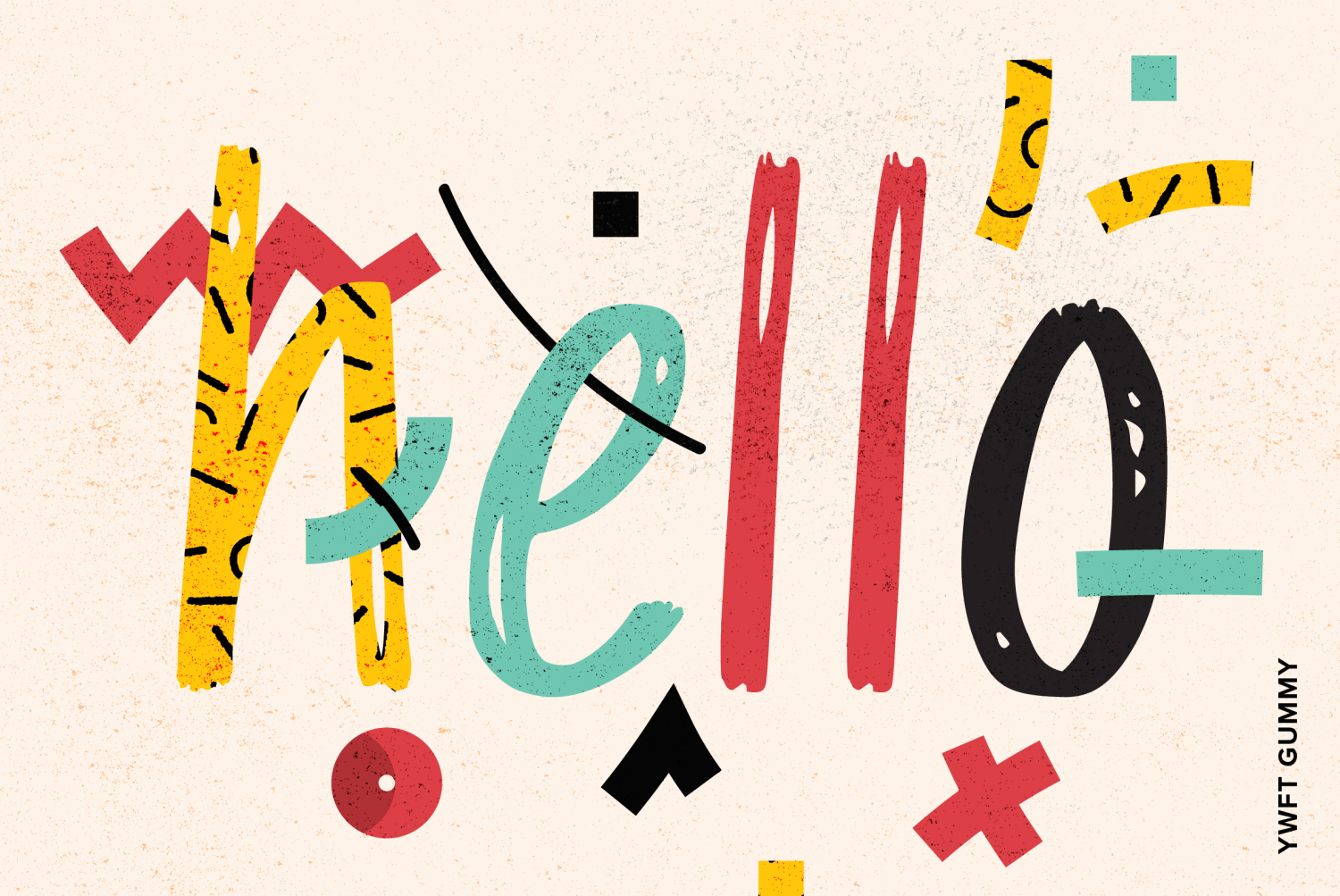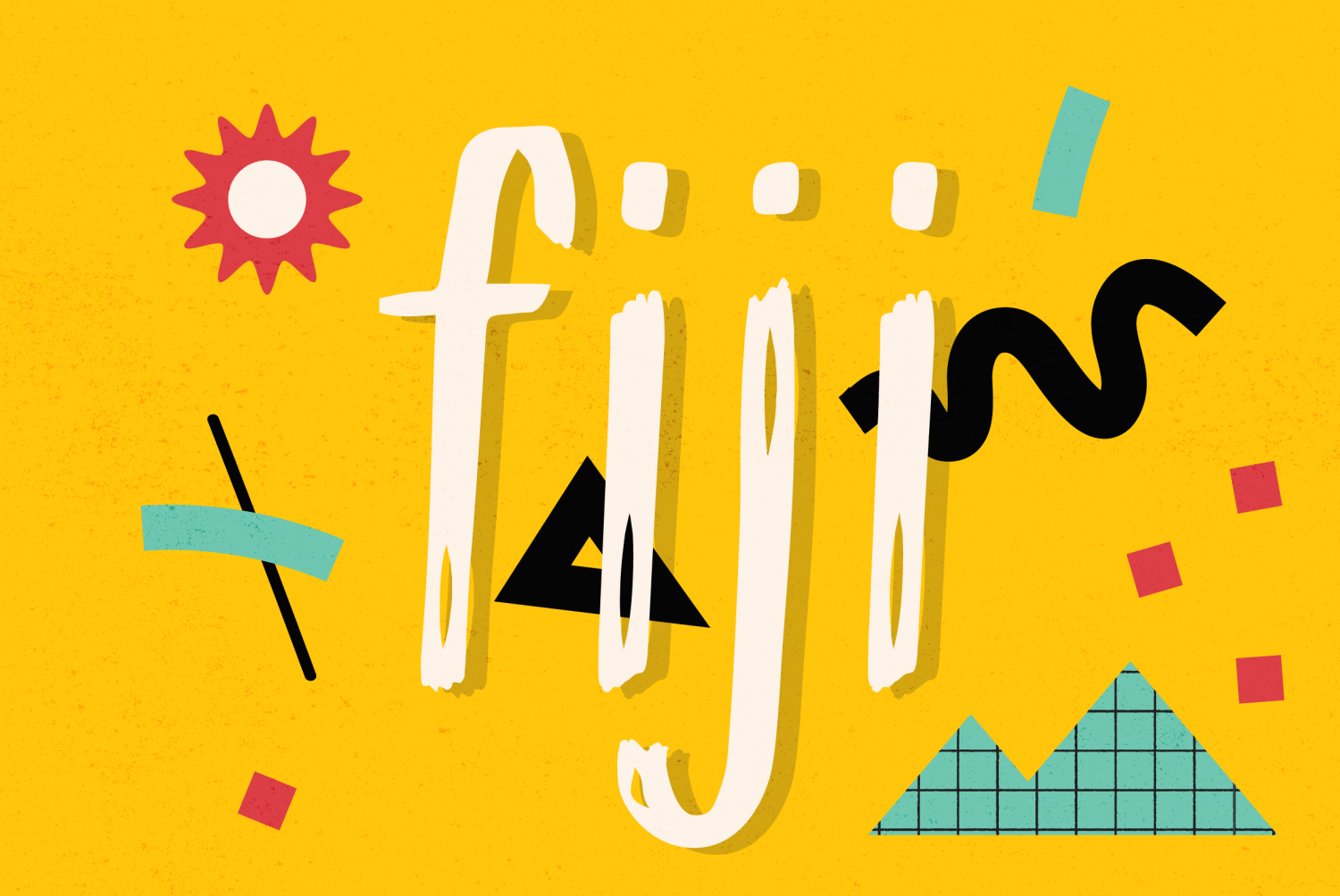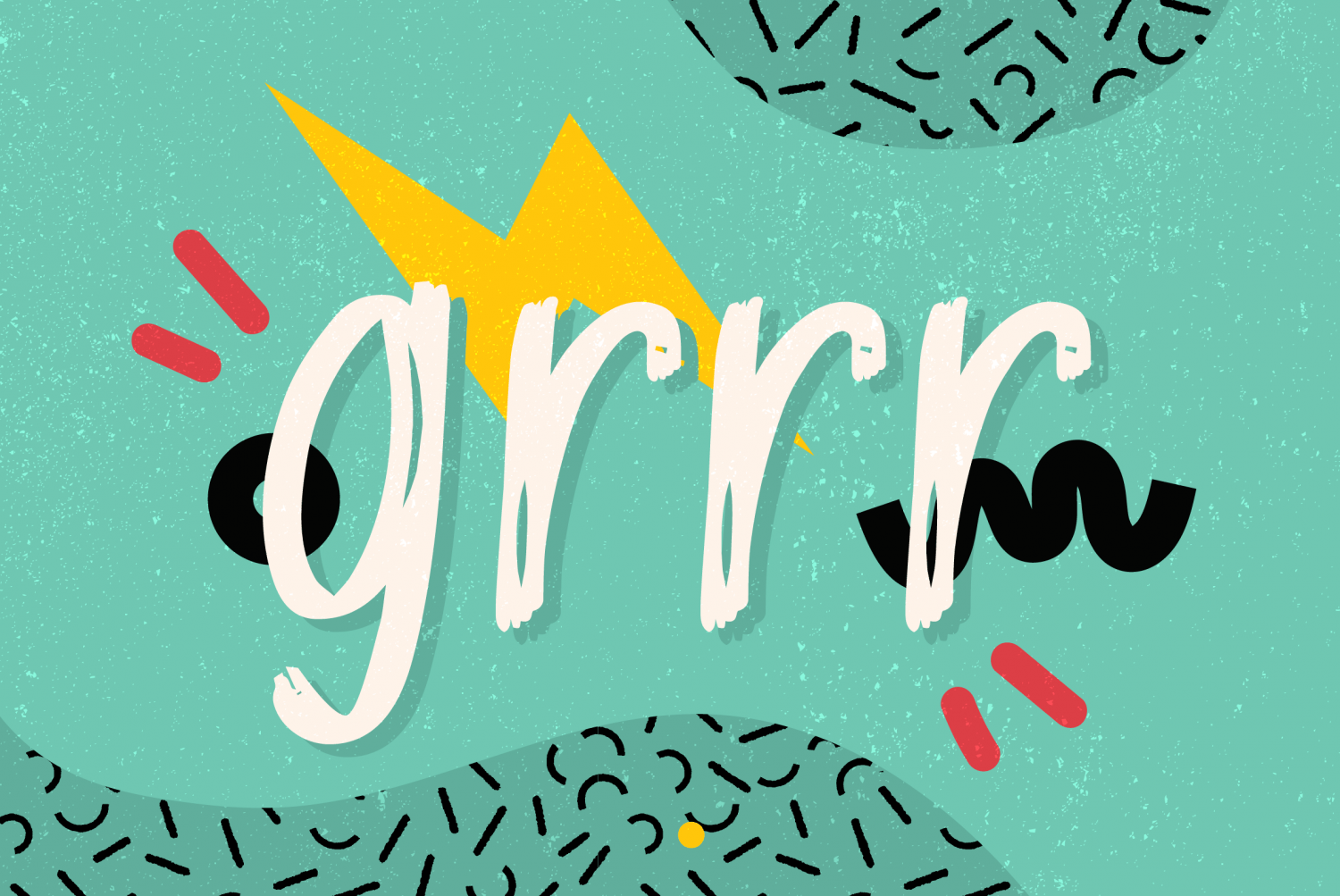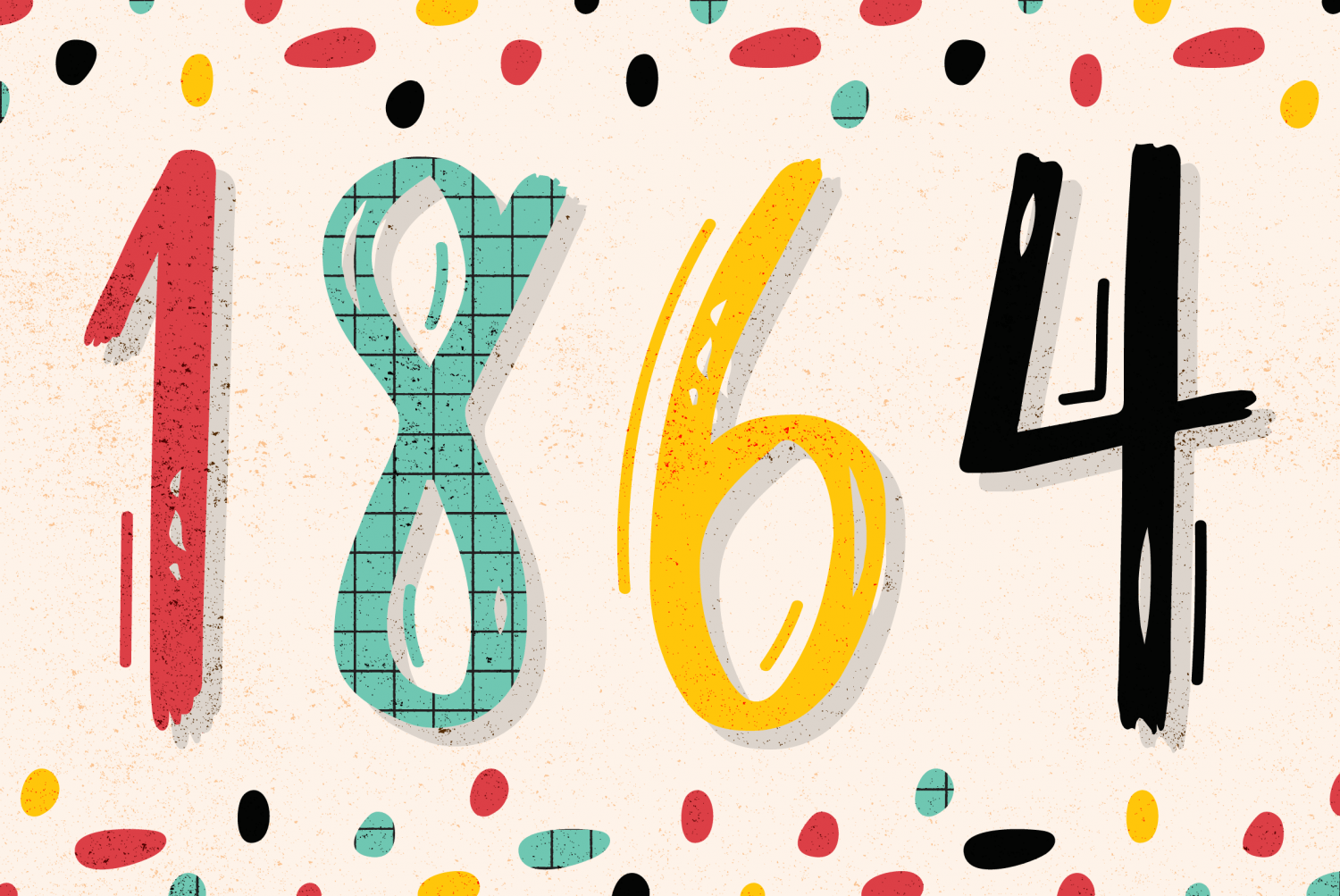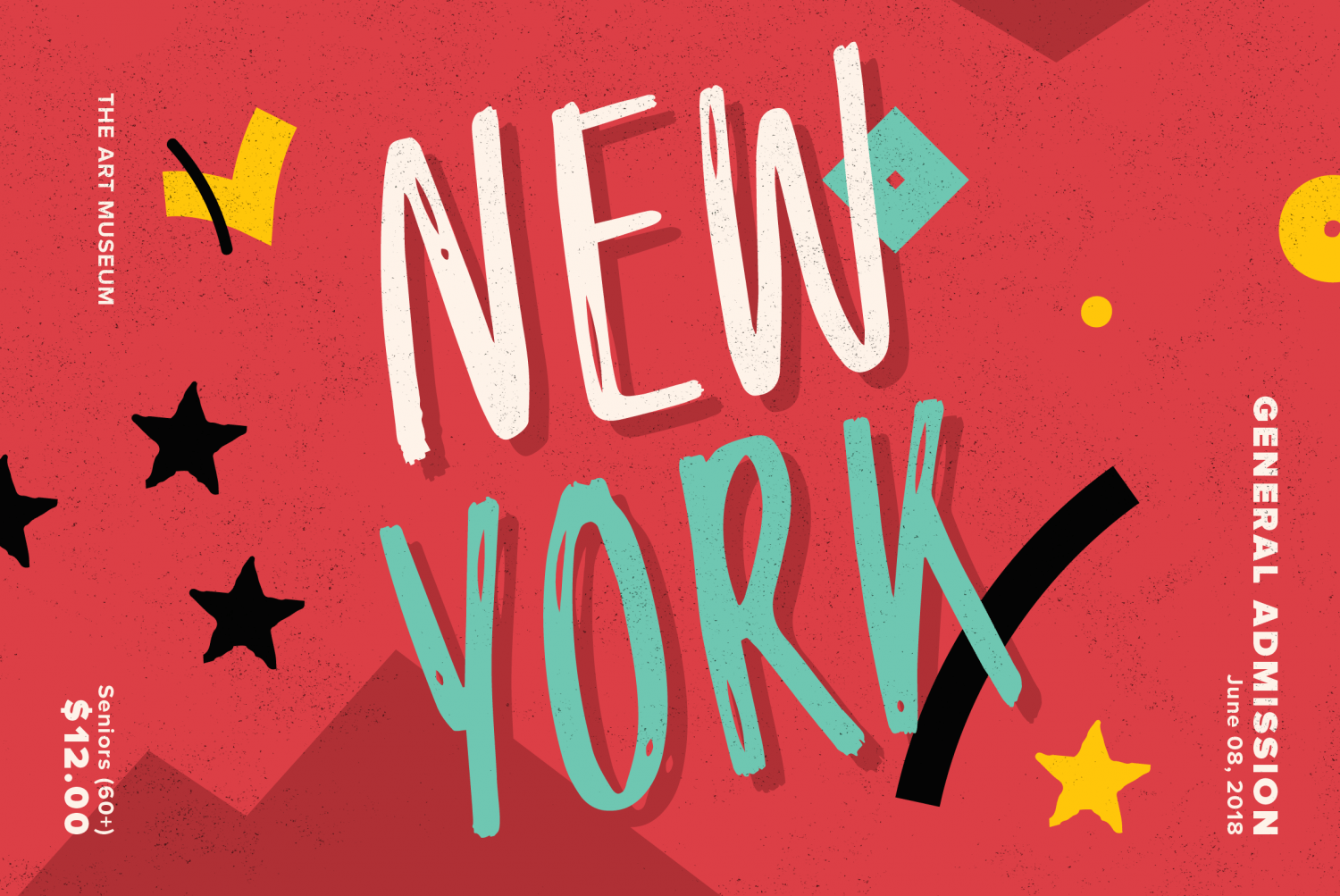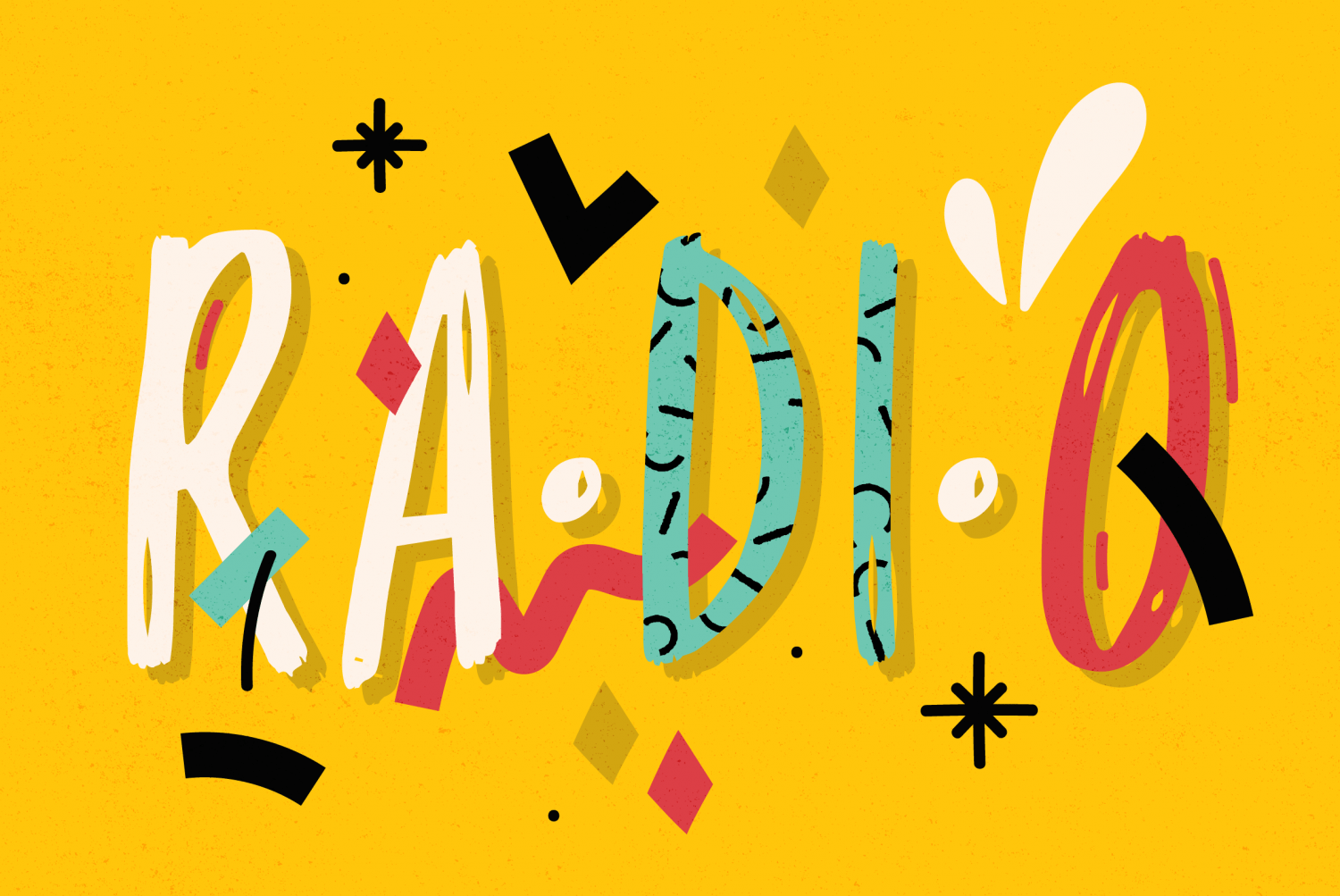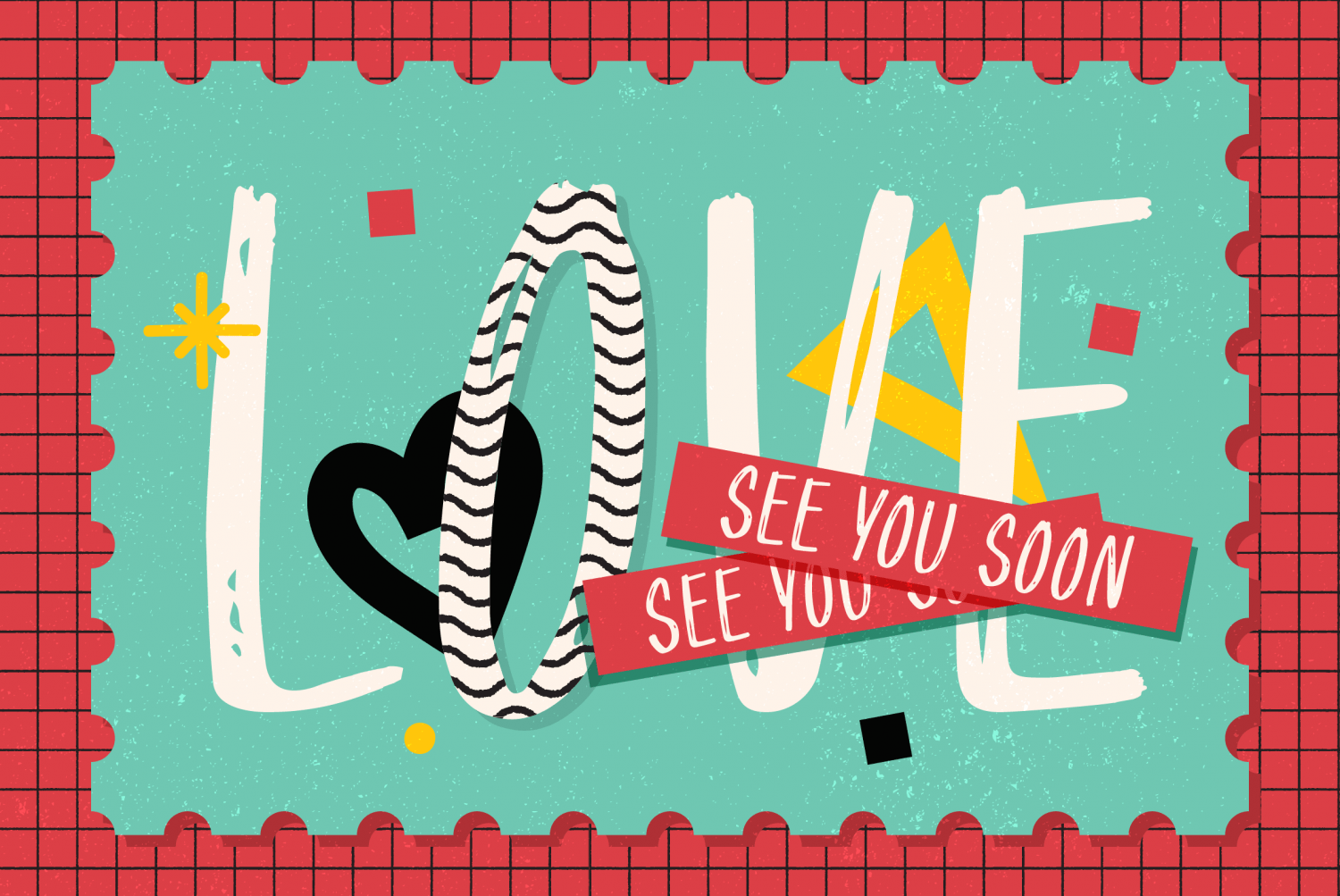
YWFT Gummy
Font Family by YouWorkForThem
If spontaneity is the stuff of life, YouWorkForThem's latest display script is living its own life to the fullest, and that Life. Is. Sweet.
YWFT Gummy is a ridiculously friendly display font that marches to the beat of its own drum. Its casual handwriting is reminiscent of smooth marker written on the glass window of a candy store ? just like the place you spent all of your loose change in as a child. Gummy's natural strokes make it perfect for store front displays and product packaging for organically or home-grown wares. Vivacious and bold, Gummy is an especially playful choice for greeting cards and party invitations that want to add a visual element of fun through an upbeat font.
Whether you're designing an event poster, a party flyer, or advertising the next big thing that's coming to your town, Gummy's excitement will grab the crowd's attention and get your message noticed.